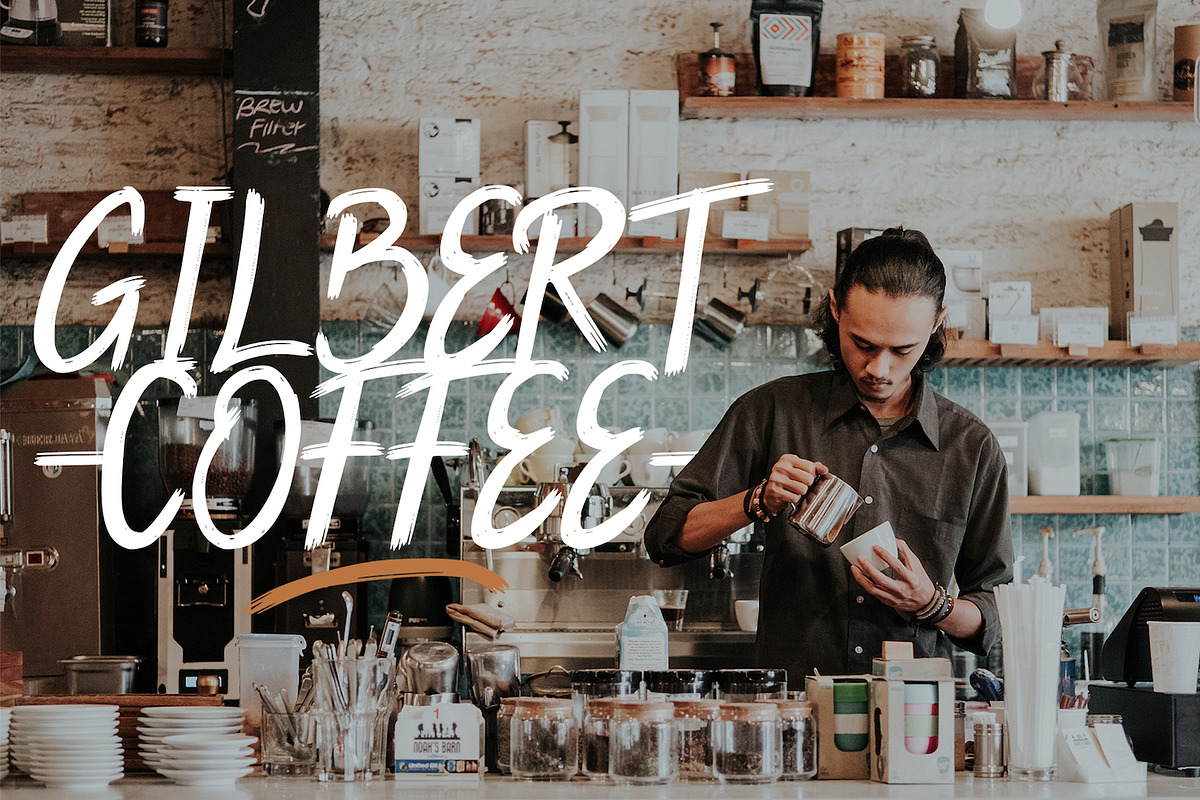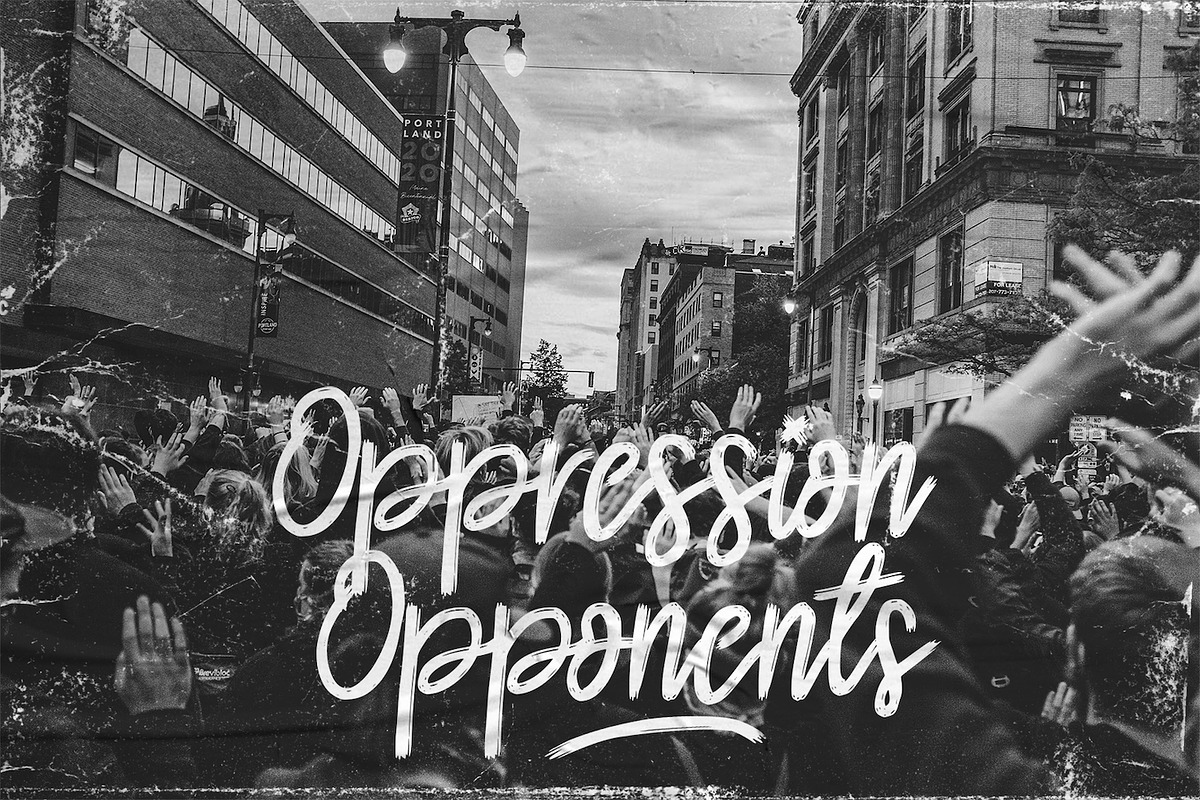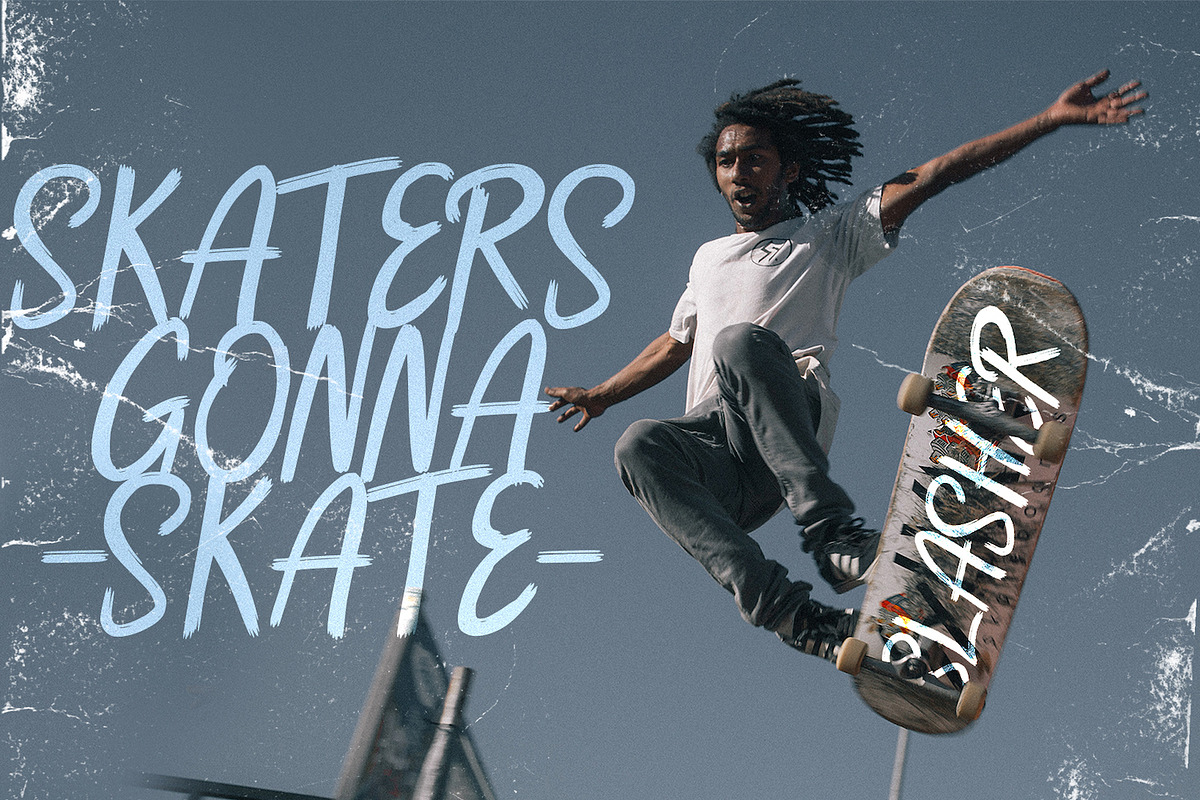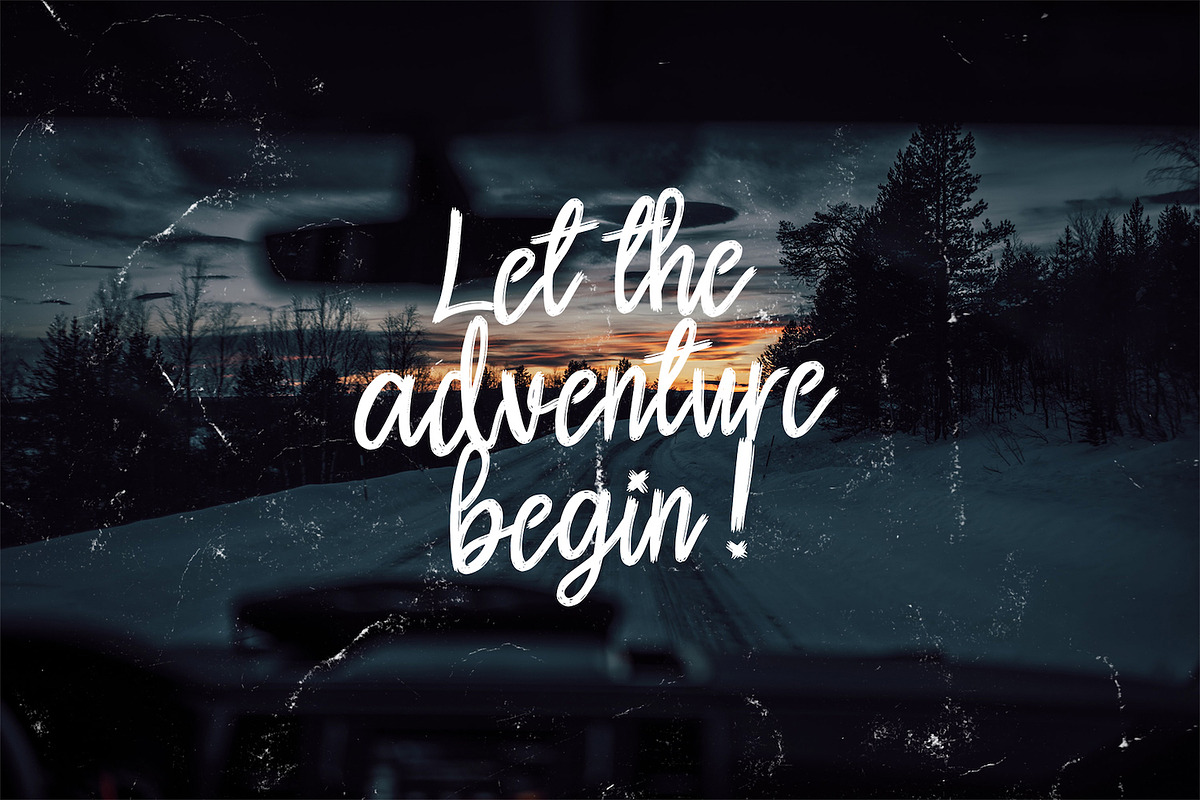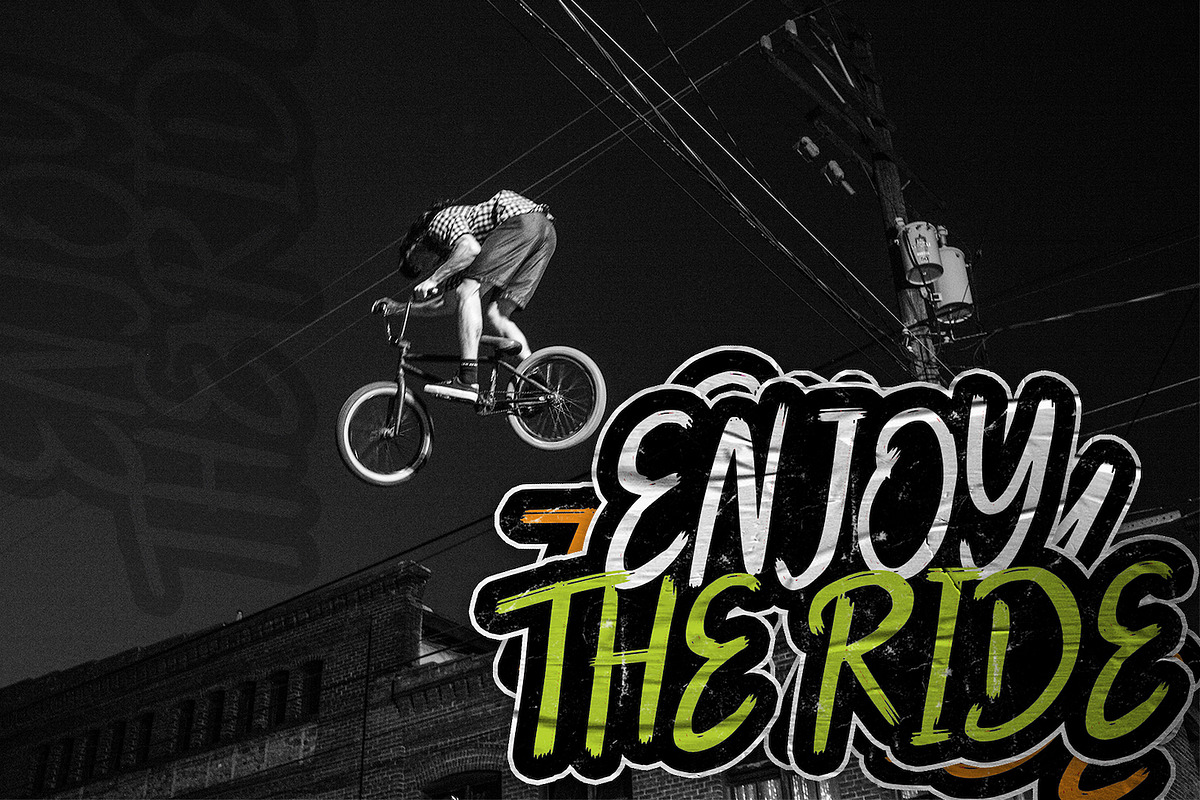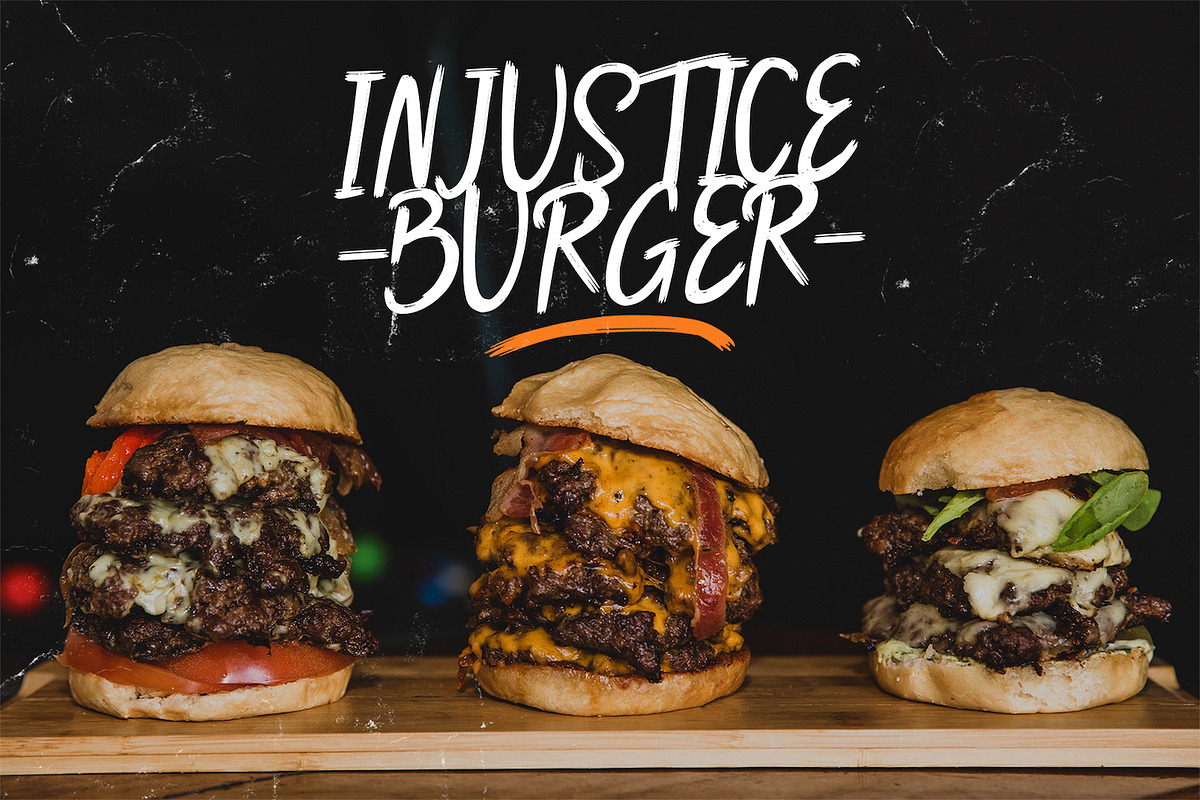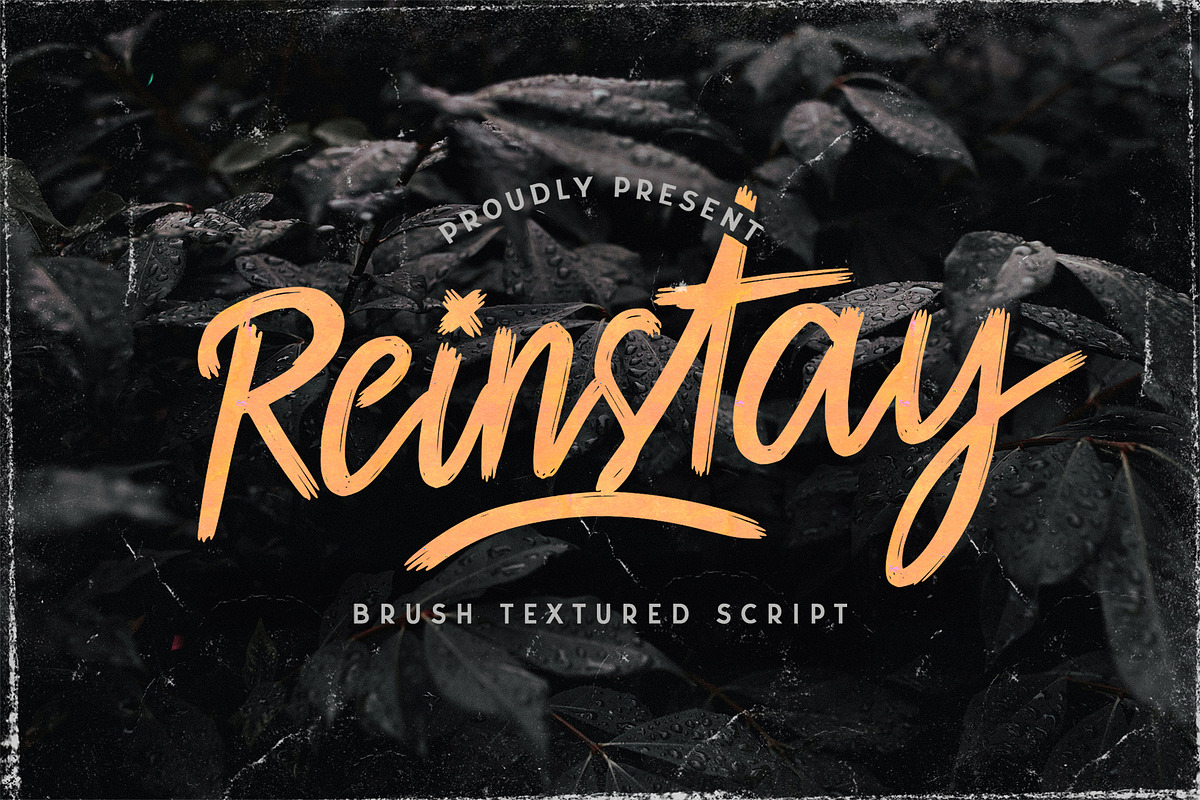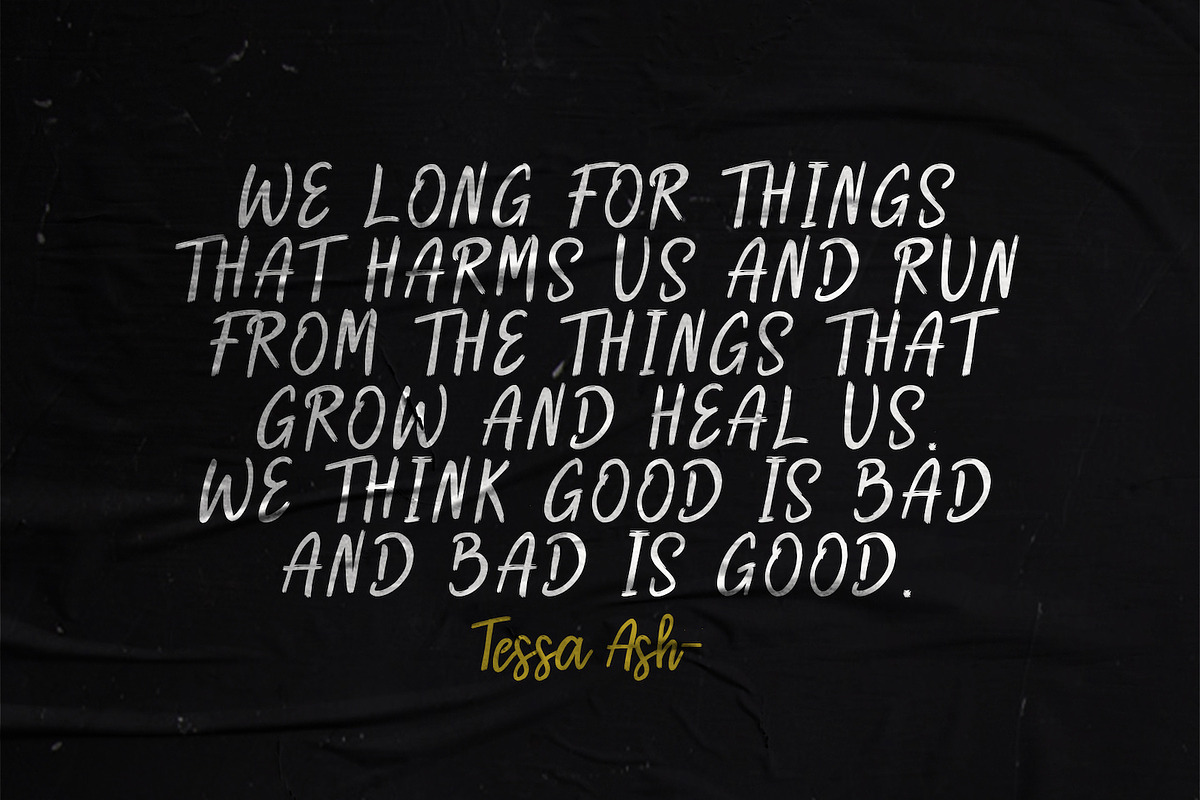
Reinstay - Brush Script Font
Introducing Reinstay - Brush Textured Script Font
Reinstay is a script font with textured brush style. The Reinstay font made with digital brush pen strokes that making this font look authentic. This font is perfect for fashion brand, wedding invitation, business card, logo brand, signature, and then calligraphy.
- This Font contains Stylish, Creative, and has a Unique Concept.